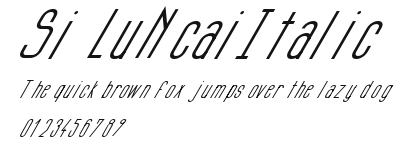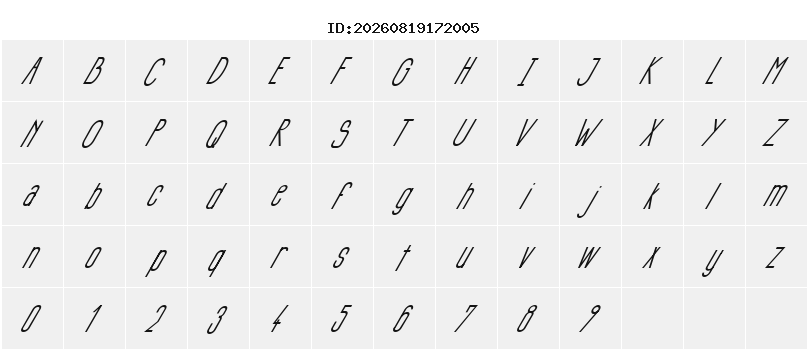
Si LuNcaiItalic Preview
• Font Name: Si LuNcaiItalic
• Full Font Name: Si LuNcaiItalic
• PostScript Name: SiLuNcaiItalic
• Designer: cenz qobbal
• Manufacturer: cenz qobbal
About Si LuNcaiItalic.ttf
Si LuNcaiItalic.ttf is a modern, elegant sans-serif font designed for ultimate readability and visual harmony. Perfect for branding, headlines, web design, and print materials.